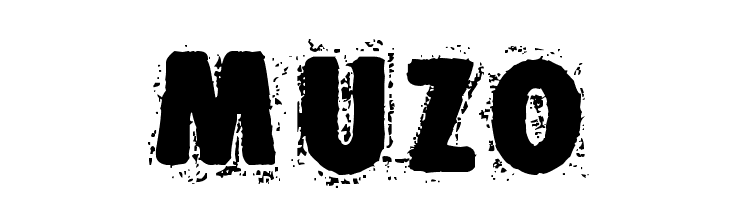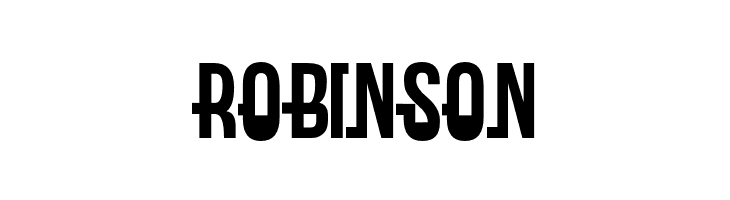
A bold, condensed display typeface with high contrast and geometric shapes.
An elegant italic serif font with smooth curves and sharp serifs.
A bold, vintage-inspired font with a playful, retro aesthetic.
A monospaced, italic font with a playful and modern style.
A playful, bold font with irregular shapes and a casual style.
A bold, decorative font with a western theme and vintage distressing.
A distressed, grungy font with irregular edges and a rough texture.
A bold, angular font with a strong, authoritative presence.
A geometric, futuristic font with clean lines and a grid-like structure.